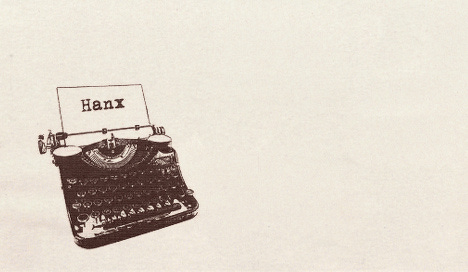
For decades, Tom Hanks has championed the charm of old-fashioned correspondence, collecting typewriters and writing letters with infectious enthusiasm. I have personally seen a handful of different letterhead designs used by Hanks over the years, and this one, from the 2010s, is especially lovely: a small illustration of a typewriter holding a sheet of paper that bears his trademark sign-off: “Hanx”.